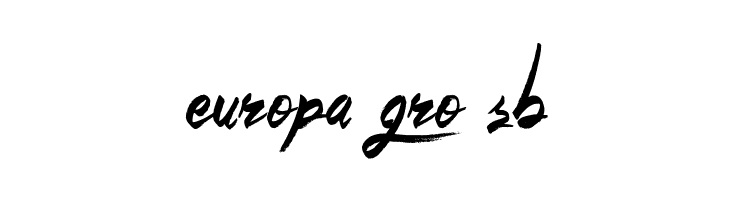
A modern, rounded sans-serif font with uniform stroke width.
A playful, decorative font with bold, rounded characters and unique cutouts.
A bold, playful font with rounded edges and a quirky, retro-futuristic style.
A bold, futuristic font with alien-like, abstract character designs.
A decorative font with abstract, alien-like shapes and molecular designs.
A futuristic, segmented font with a digital, tech-inspired design.
A bold, futuristic font with horizontal line patterns and geometric shapes.
A bold, italicized font with futuristic, striped letterforms.
A futuristic, italicized font with a striped, dynamic design.
A bold, geometric font with a futuristic and digital aesthetic.
A bold, futuristic font with geometric, block-like characters.
A bold, italic, futuristic font with a dynamic and sleek design.
A bold, italicized font with a futuristic and angular design.
Whimsical alien face icons used as letter and symbol glyphs.
A playful, hand-drawn font with bold, rounded characters and a whimsical style.
A quirky, hand-drawn font with elongated, narrow characters.
A futuristic, geometric font with sharp angles and a blocky style.
A futuristic, angular italic font with a sharp, geometric design.
A bold, futuristic font with geometric shapes and a sci-fi vibe.
A playful, spooky font with bold, rounded characters and whimsical, alien-like features.
A chaotic, hand-drawn font with irregular, jagged letterforms.
A bold, cursive script font with a dynamic, handwritten style.
A bold, futuristic font with geometric and rounded letterforms.